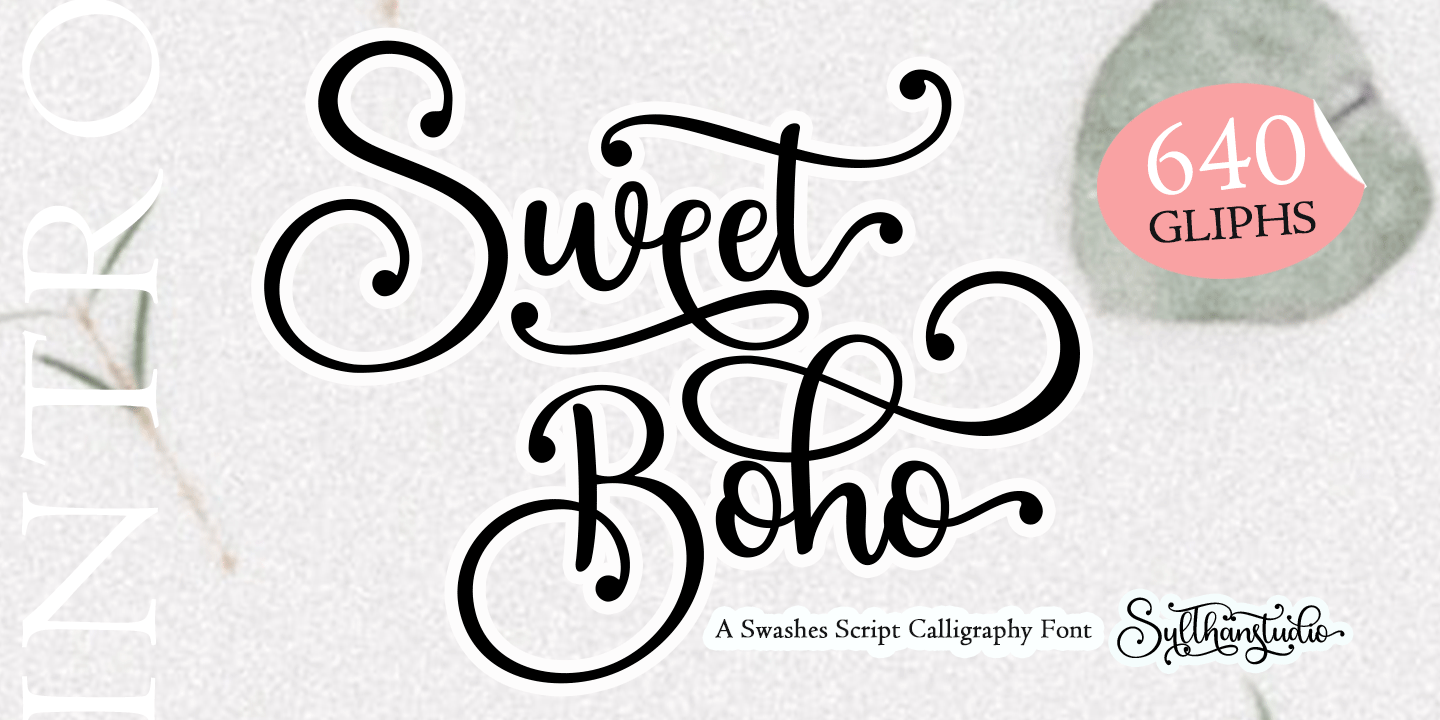
Sweet Boho Font Free Download – Stylish and Free-Spirited Typeface for Creative Projects
Looking to add a touch of bohemian charm and artistic flair to your designs? Sweet Boho Font Free Download is the perfect choice. This elegant script font blends casual handwritten style with delicate details, making it ideal for wedding invitations, branding, social media graphics, and lifestyle blogs.
Sweet Boho’s flowing lines and natural curves create a relaxed yet sophisticated look, perfect for projects that want to convey warmth and creativity. Whether you’re designing logos, packaging, or personal stationery, this font enhances the overall aesthetic with its unique personality.
Bring your designs to life with Sweet Boho — a font that perfectly captures the essence of free-spirited elegance.